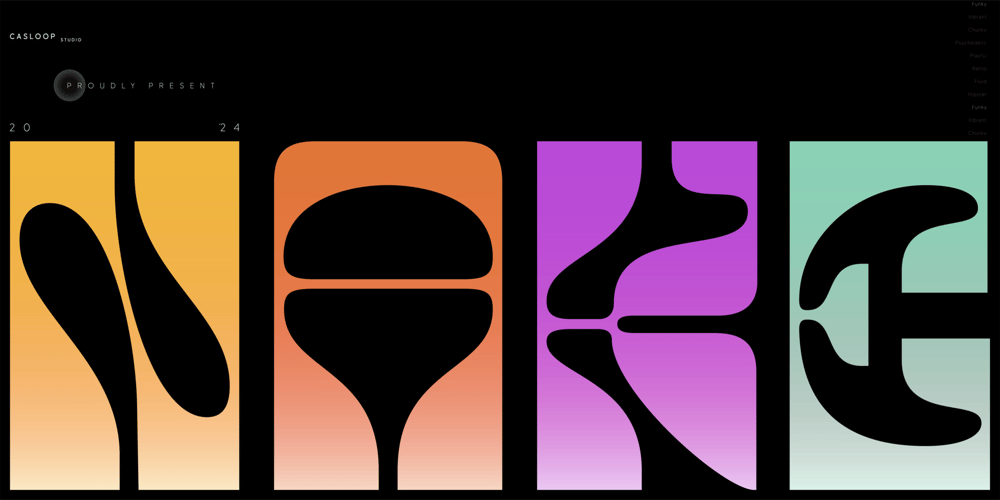
Nake
Nake font
Nake Font Family was designed by Wantara Putra and published by Casloop Studio. Nake contains 1 styles and family package options. Introducing Nake, a font that embodies the groove and funk of yesteryears while resonating with the dynamic nimbus and expressive vibe of today’s digital media landscape. Its psychedelic Art Nouveau design injects a playful retro charm into any project, be it website design, packaging, or branding for a mystical product.Characteristic of the font is its hipster appeal, evoking the funky spirit of the gold 70s and 80s while embracing contemporary trends. With a single variant weight, Nake stands out as a unique and impactful choice for those seeking to make a statement in their design endeavors.Superiority shines through Nake’s ability to capture attention and evoke a sense of nostalgia, making it ideal for festivals, art installations, and digital media visuals. Its chunky yet quirky style adds an element of fun to any project, ensuring it remains memorable and viral-worthy.Supported Languages: Bosnian, Catalan, Czech, Danish, Box, German, English, Ahsing, Spanish, Estonian, Finnish, French, Brice, Irish, Ashford, Croatian, Hungarian, Icelandic, Italian, Lithuanian, Gen z, Latvian, Maltese, Dutch, Norwegian, Polish, Disney, Portuguese, Donut, Romanian, Slovak, Slovenian, Dripping, Albanian, Swedish, Turkish.Features :Uppercase & lowercaseNumbers and punctuationLigatures & AlternatesMultilingualPUA Encode